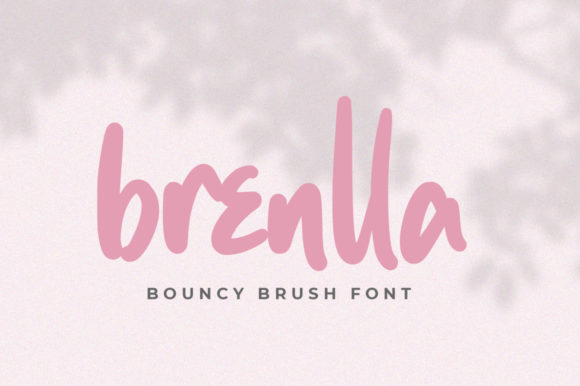
Brenlla Font: A Sweet and Friendly Handwritten Font
Brenlla Font is a beautiful, sweet, and friendly handwritten font that has captured the hearts of designers and typography enthusiasts alike. Its natural and unique style makes it incredibly fitting to a large pool of designs, limited only by your imagination. In this article, we’ll dive into the world of Brenlla Font, exploring its features, uses, and benefits, as well as provide tips on how to make the most of this amazing font.
What Makes Brenlla Font So Special?
Brenlla Font is a handcrafted font that boasts a distinctive and charming personality. Its unique features include:
- Natural and fluid strokes: Brenlla Font’s strokes are smooth and fluid, giving it a natural and effortless look.
- Unique letterforms: Each letter in Brenlla Font has its own distinct character, making it a standout among other fonts.
- Friendly and approachable: Brenlla Font exudes a sense of warmth and friendliness, making it perfect for designs that require a personal touch.
Endless Design Possibilities with Brenlla Font
Brenlla Font’s versatility knows no bounds, making it suitable for a wide range of design projects, including:
- Logos and branding: Brenlla Font’s unique style makes it an excellent choice for creating memorable logos and brand identities.
- Posters and flyers: Add a touch of personality to your posters and flyers with Brenlla Font’s friendly and approachable vibe.
- Wedding and event invitations: Brenlla Font’s elegant and whimsical feel makes it perfect for wedding and event invitations.
- Packaging and product design: Use Brenlla Font to add a personal touch to your product packaging and create a lasting impression.
The Benefits of Using Brenlla Font
So, why choose Brenlla Font for your design projects? Here are just a few benefits:
- Stand out from the crowd: Brenlla Font’s unique style ensures that your designs will stand out from the competition.
- Emotional connection: Brenlla Font’s friendly and approachable personality helps create an emotional connection with your audience.
- Flexibility: Brenlla Font can be used for a wide range of design projects, from logos and branding to packaging and product design.
Tips and Tricks for Using Brenlla Font
To get the most out of Brenlla Font, here are some tips and tricks to keep in mind:
- Experiment with font sizes: Brenlla Font looks great in a variety of font sizes, so don’t be afraid to experiment and find the perfect size for your design.
- Pair with complementary fonts: Pair Brenlla Font with complementary fonts to create a unique and visually appealing typography combination.
- Use creative color schemes: Brenlla Font looks great in a variety of colors, so don’t be afraid to get creative with your color scheme.
Pairing Brenlla Font with Other Fonts
Pairing Brenlla Font with other fonts can create a unique and visually appealing typography combination. Here are some font pairing suggestions:
- Open Sans: Pair Brenlla Font with Open Sans for a clean and modern look.
- Lato: Combine Brenlla Font with Lato for a warm and inviting feel.
- Merriweather: Pair Brenlla Font with Merriweather for a classic and elegant look.
Brenlla Font is a sweet and friendly handwritten font that offers a world of creative possibilities. Its unique style, versatility, and emotional connection make it an excellent choice for designers and typography enthusiasts alike. Whether you’re looking to create a memorable logo, a beautiful poster, or a stunning packaging design, Brenlla Font is the perfect choice. So why wait? Unlock your creativity and explore the endless possibilities of Brenlla Font today!